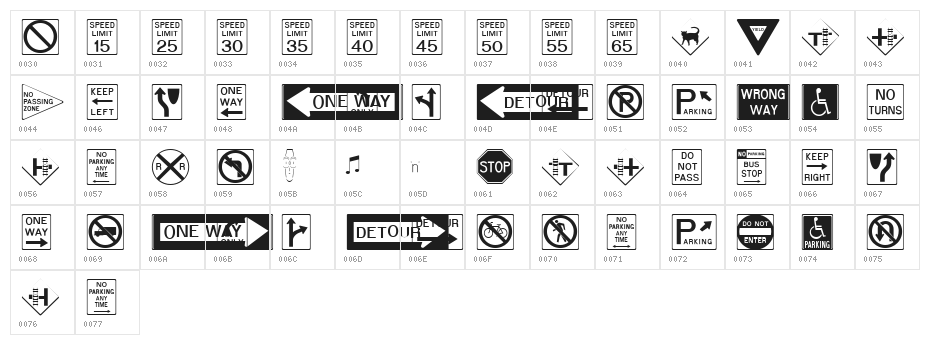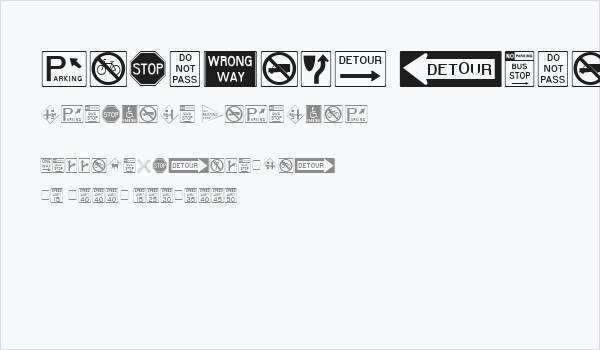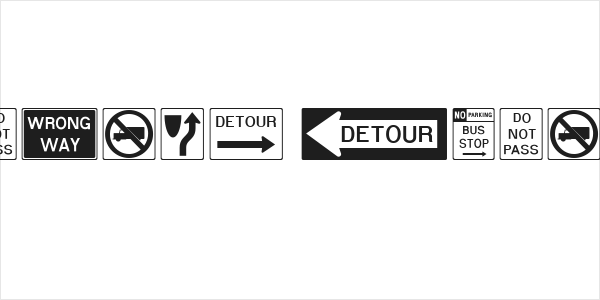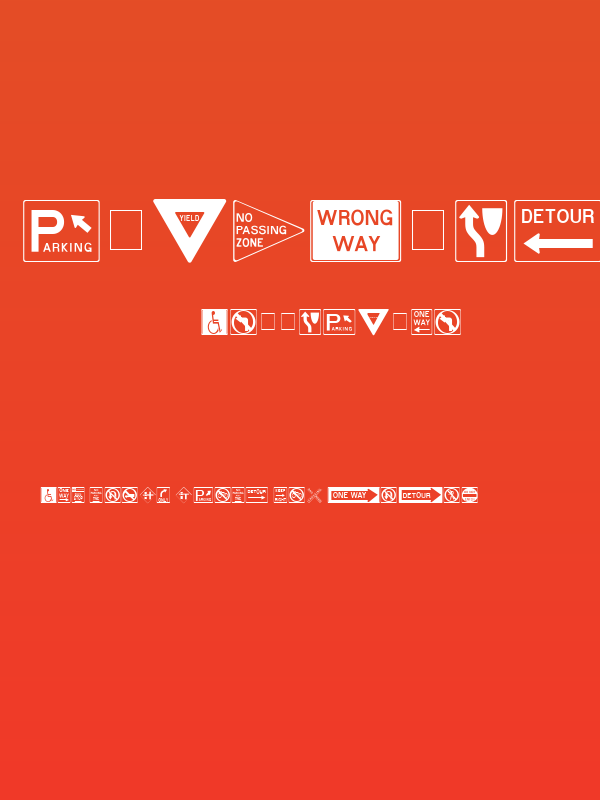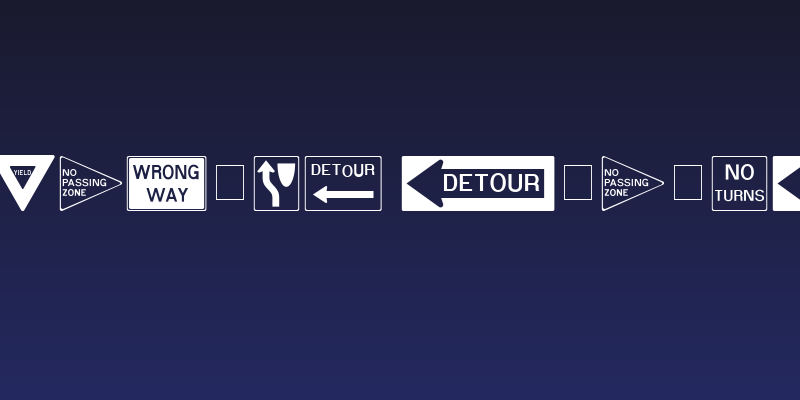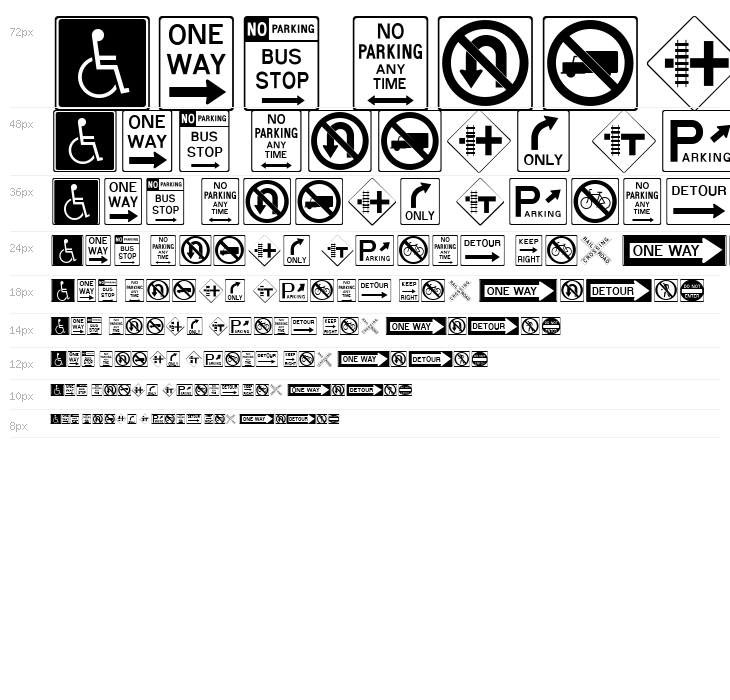
RoadSign Medium Font
| Caso d'uso | Headlines, Signage, Wayfinding |
| Progetti proposti | Ideal for use in signage, wayfinding systems, instructional materials, and any project requiring high visibility and clarity. |